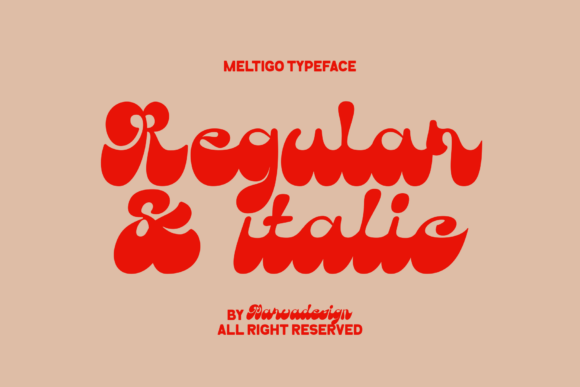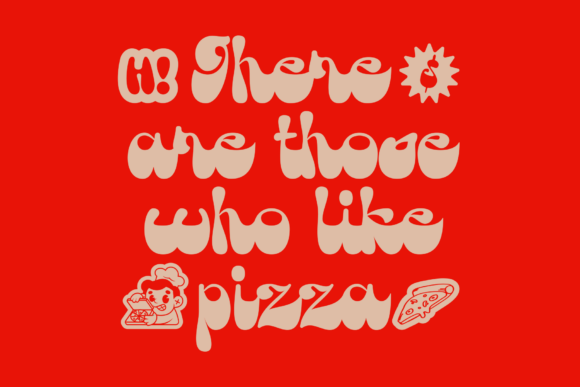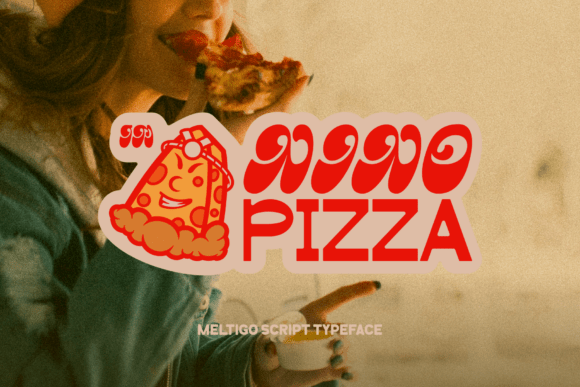
Introduction to Meltigo Font
Have you ever stared at a blank canvas, trying to bring a creative project to life? Sometimes, all it takes is the perfect font to spark inspiration. For designers, finding the right typeface can be the key to unlocking a project’s true potential. That’s where the Meltigo Font comes in – a bold and playful retro script font designed to transport you back to the groovy 70s.
With its exaggerated curves, bubbly letterforms, and high contrast between thick and thin strokes, the Meltigo Font is a high-quality design resource that’s perfect for branding projects, product packaging, and social media graphics. Its unique look is a mix of expressive brush-style lettering and smooth, rounded forms, giving it a soft, melting appearance that’s sure to grab attention. And the best part? It’s available for free download, making it an essential tool for any creative project.
Key Features of Meltigo Font
- High-quality design resource ideal for creative projects, offering a unique and modern aesthetic.
- Unique characteristics include a futuristic feel and a wide range of stylistic alternates for added versatility.
- Perfect for use in digital design, including web pages, social media graphics, and presentations.
Honest Review: Meltigo Font
As a designer, I’ve had the chance to work with a wide range of fonts, and I’m excited to share my thoughts on the Meltigo Font. I downloaded this font for free, and I was pleasantly surprised by its high quality and versatility.
What works well with the Meltigo Font is its unique blend of modern and vintage elements. The font is highly customizable, and its transparent background makes it perfect for overlaying on images or using as a design element in creative projects. ✨ I particularly love the way it adds a touch of elegance to any design. ✨
- High-quality design with a unique aesthetic
- Perfect for creative projects, branding, and web design
One limitation of the Meltigo Font is that it may not be suitable for all types of designs. For example, its vintage elements may clash with modern designs that require a more minimalist aesthetic. ⚠️ However, for the right project, this font is a game-changer.
Overall, I’m impressed with the Meltigo Font and would highly recommend it as a design resource for any creative project. Its high quality, unique aesthetic, and free download make it a valuable addition to any designer’s toolkit.
Tips for Getting the Most Out of Meltigo Font
To get the most out of the Meltigo Font, use it with a transparent background to create a unique and eye-catching design. You can also experiment with different font sizes and styles to add depth and visual interest to your design.
The Meltigo Font is ideal for use in creative projects, such as graphic design, digital art, and typography. It can also be used in business presentations and documents to add a touch of creativity and flair.